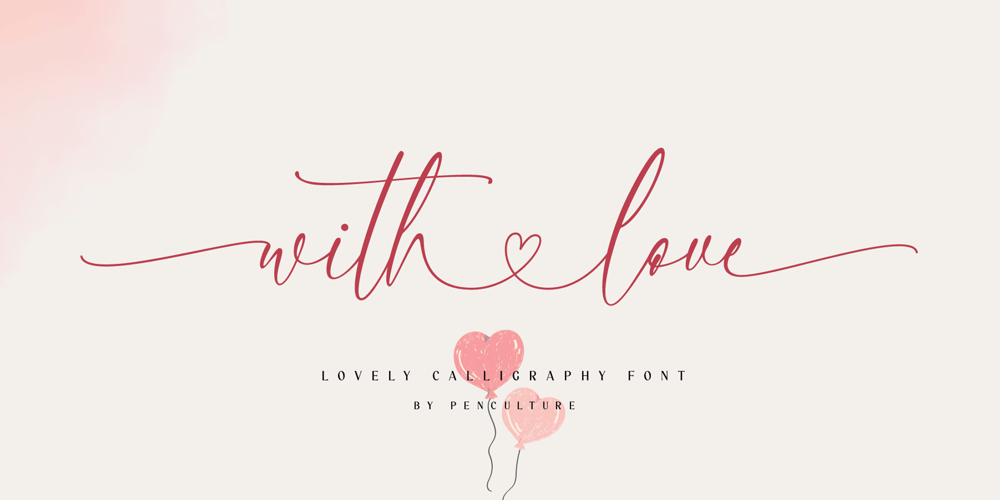
With Love Font Family was designed by Revo Farsiky and published by Pen Culture. With Love contains 1 styles and family package options. Introducing “With Love Calligraphy Font”With Love is a beautiful calligraphy font that features elegant and flowing letterforms. This font come with ligature and beginning and ending swashes, which are ornamental flourishes that extend from the first or last letter of a word, adding an extra touch of elegance and sophistication to your designs. These swashes are perfect for adding a romantic and intimate feel to your designs. With love also has a unique set of swashes that are shaped like the love sign. These swashes add a romantic and playful touch to the font, and are perfect for projects that require a bit of whimsy and charm.What will you get: With Love OTF With Love TTF With Love WOFF I really hope you enjoy it – please do let me know what you think, comments & likes are always hugely welcomed and appreciated. More importantly, please don’t hesitate to drop me a message if you have any issues or queries.Thank you